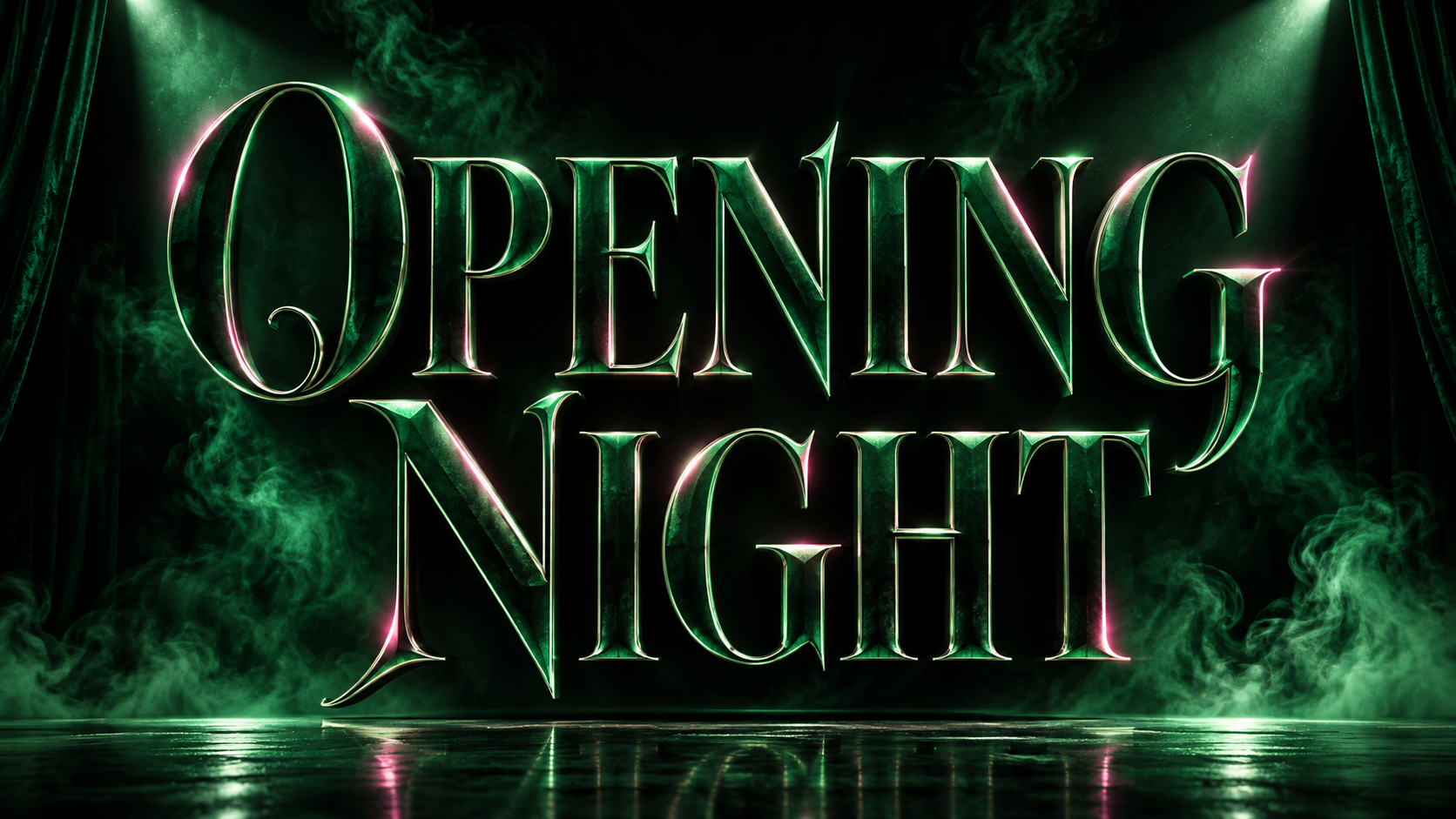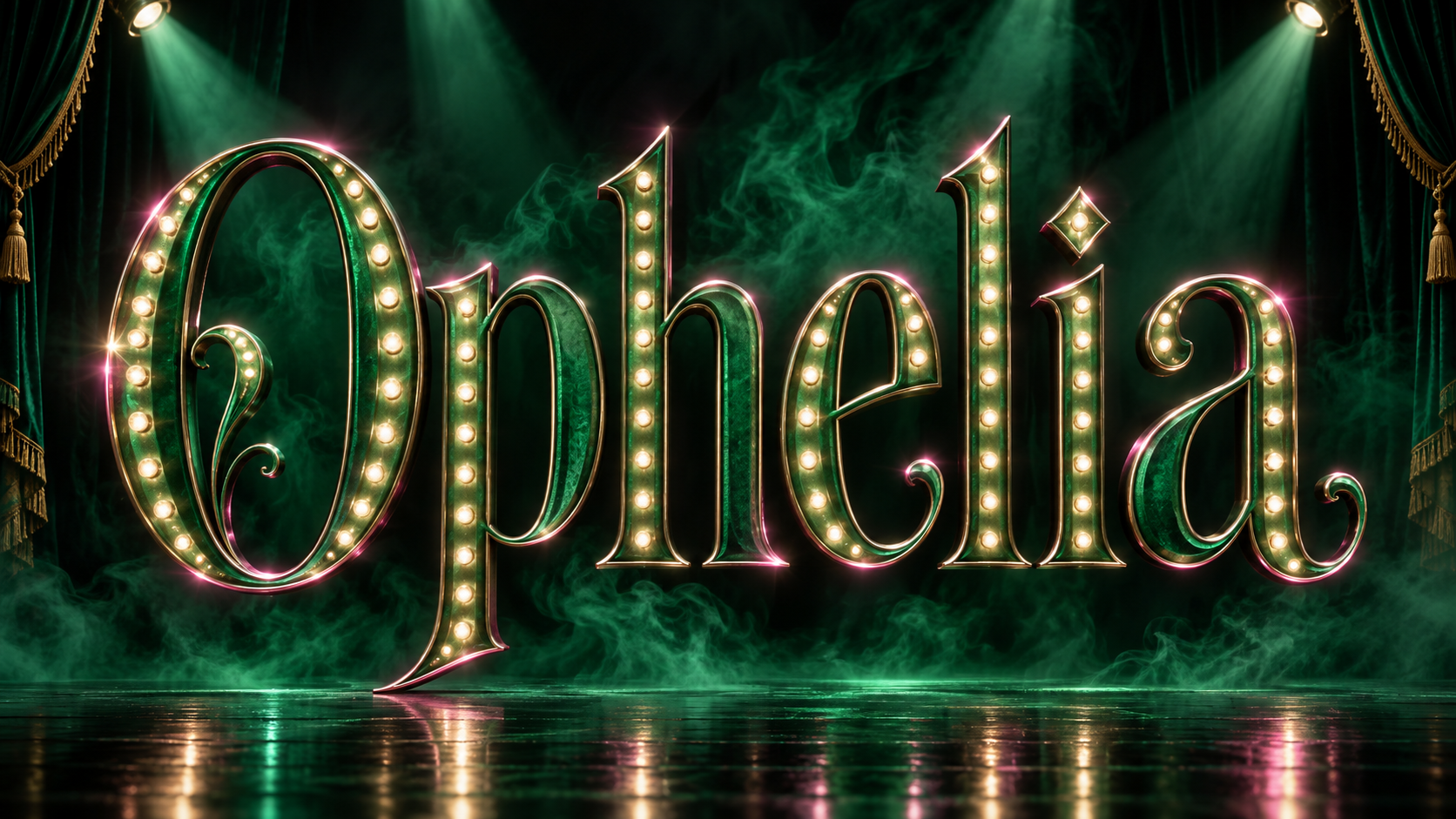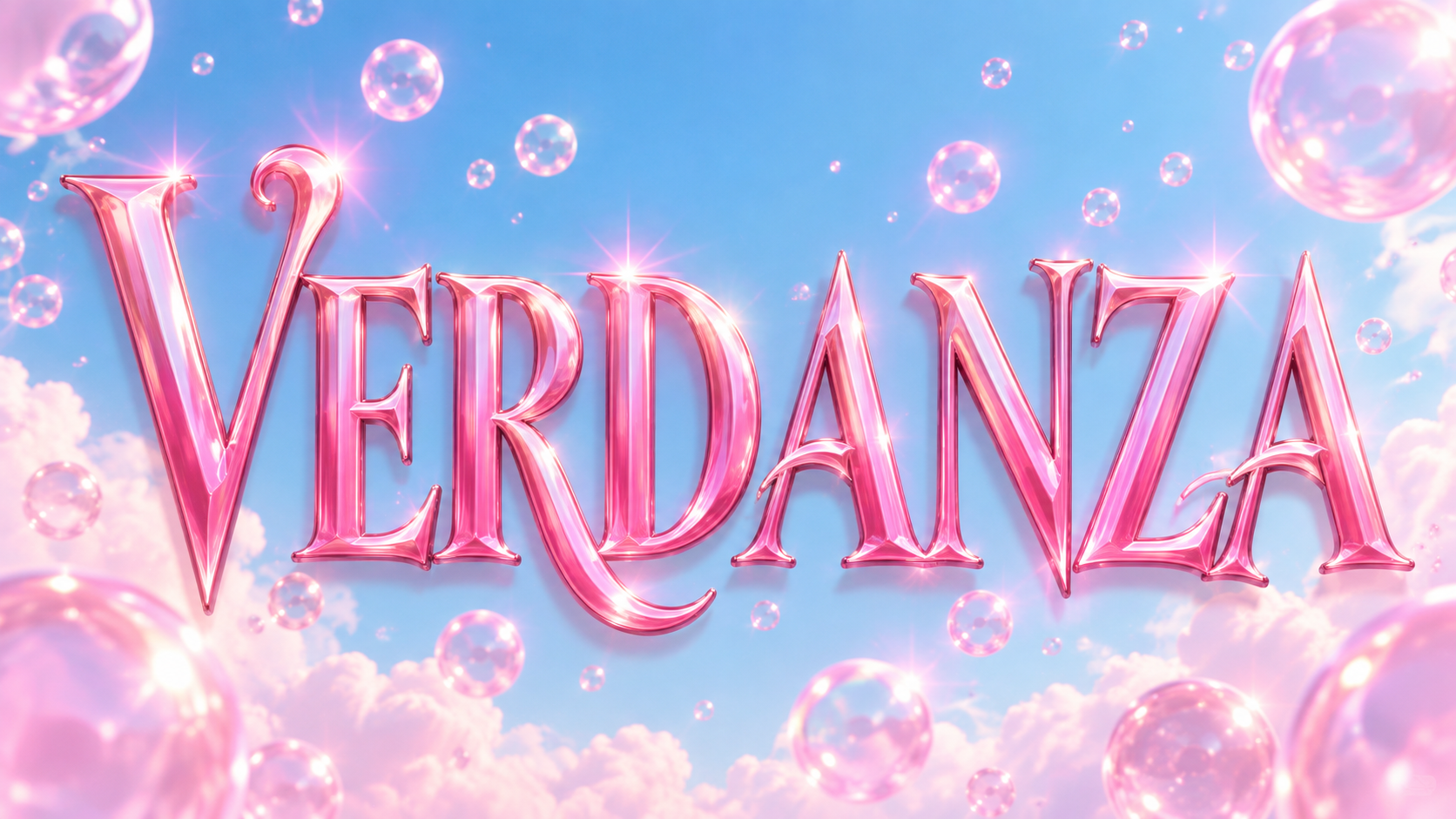
Wicked Font Generator
Tall, sharp emerald serifs with a pink shimmer and stage-light mist, inspired by the musical. Fan-made.
Emerald MarqueeModel sample
deep emerald serif letters with a soft green glow and marquee bulbs tracing the edges, Broadway night
The Wicked font people search for is the musical's title lettering: tall, elegant serif capitals with sharp pointed terminals, a deep emerald green surface, and a theatrical shimmer that hints at the pink and black of the story's two witches. Fontique does not provide that typeface or reproduce the title logo. Our AI renders your own name in an original theatrical style inspired by that visual language.
Presets split the stage between the two leads and the city itself. Emerald Marquee is the deep green serif with soft glow, Pink Bubble goes glossy and sparkly, Black Hat turns the letters into dark velvet with a green edge, Poppy Field sets them among red blooms, and Emerald Glass makes them out of faceted green crystal.